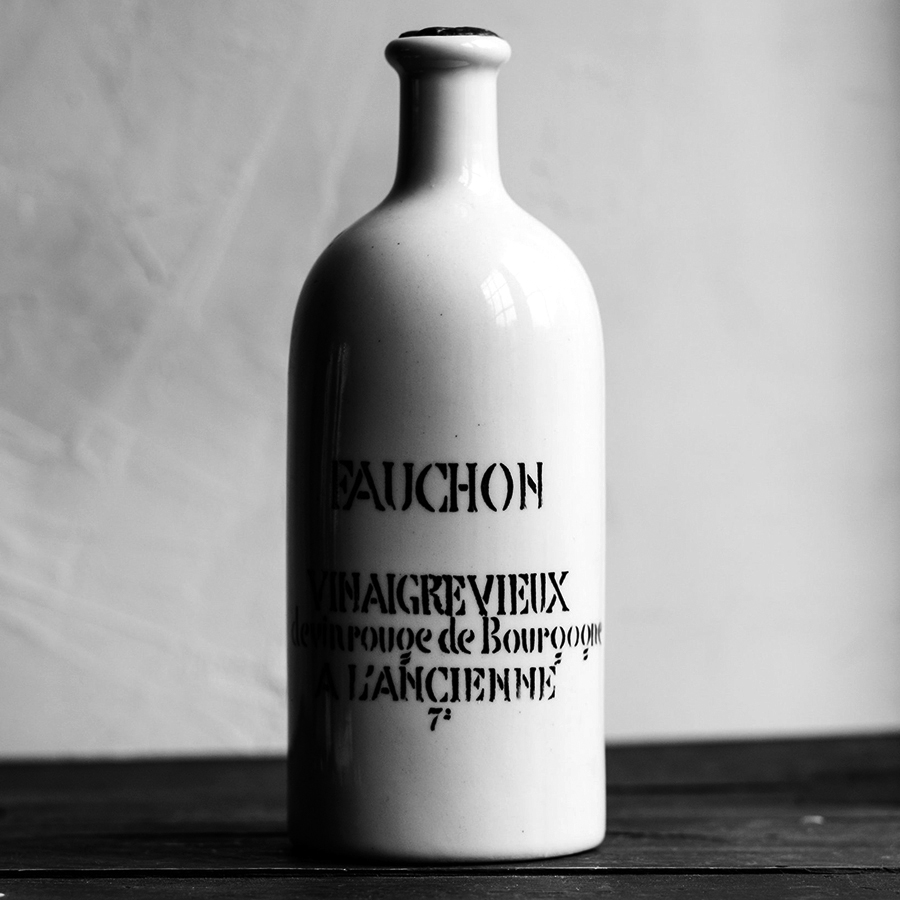
Auguste Serif
Auguste began as a chance encounter with the lettering on an old ceramic bottle, where years of use had beautifully degraded its stenciled surface.
What started as a faithful recreation of this artifact evolved into something more ambitious: two distinct type families that honor the original's curious blend of serif and sans-serif qualities. Auguste Sans and Auguste Serif each build upon the source material's character while developing their own strong identities. They share core DNA that allows them to work seamlessly together or stand confidently apart.
Auguste Serif comes in four carefully crafted weights – Light, Regular, Medium and Bold – making it equally comfortable in body text or scaled up for impactful display use.
Source Material
Fauchon vinegar bottle